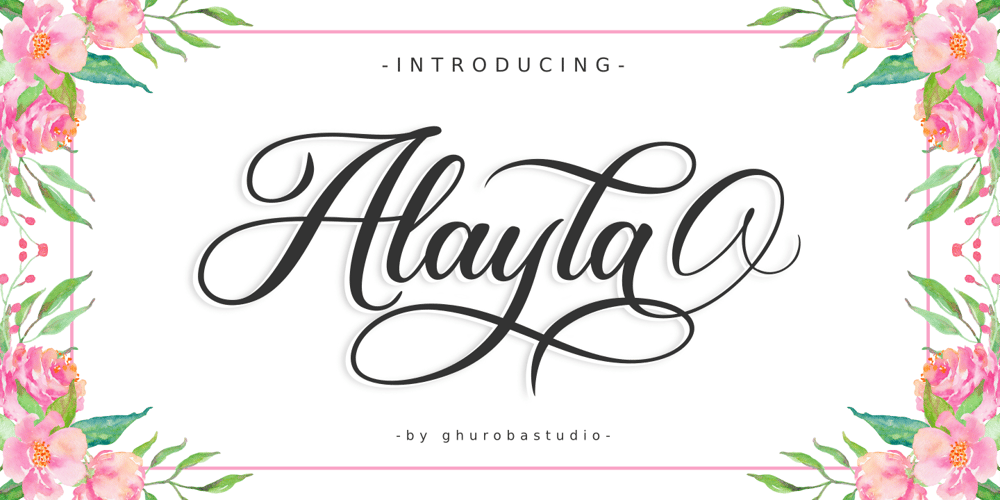
Alayla Font Family was designed by Hasan Udin and published by Ghuroba Studio. Alayla contains 1 styles and family package options. Alayla is modern calligraphy. It’s feels both magical and elegant. It looks stunning for your design such as on wedding invitations, thank you cards, quotes, greeting cards, logos, business cards and every other design.This font is PUA encoded which means you can access all of the glyphs and swashes with ease! It features a varying baseline, smooth lines, gorgeous glyphs and stunning alternates.